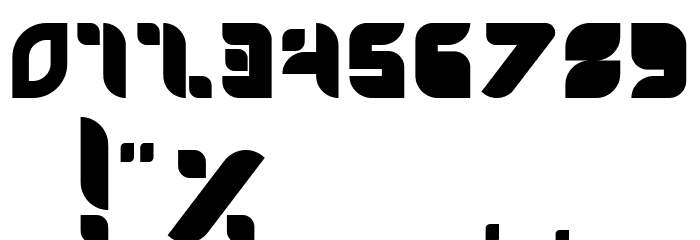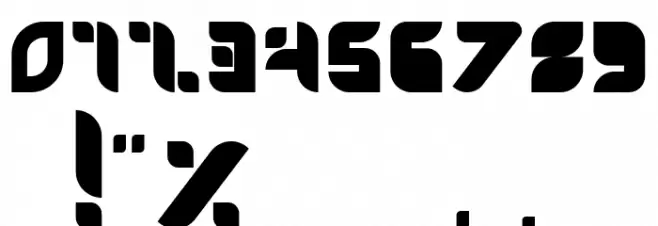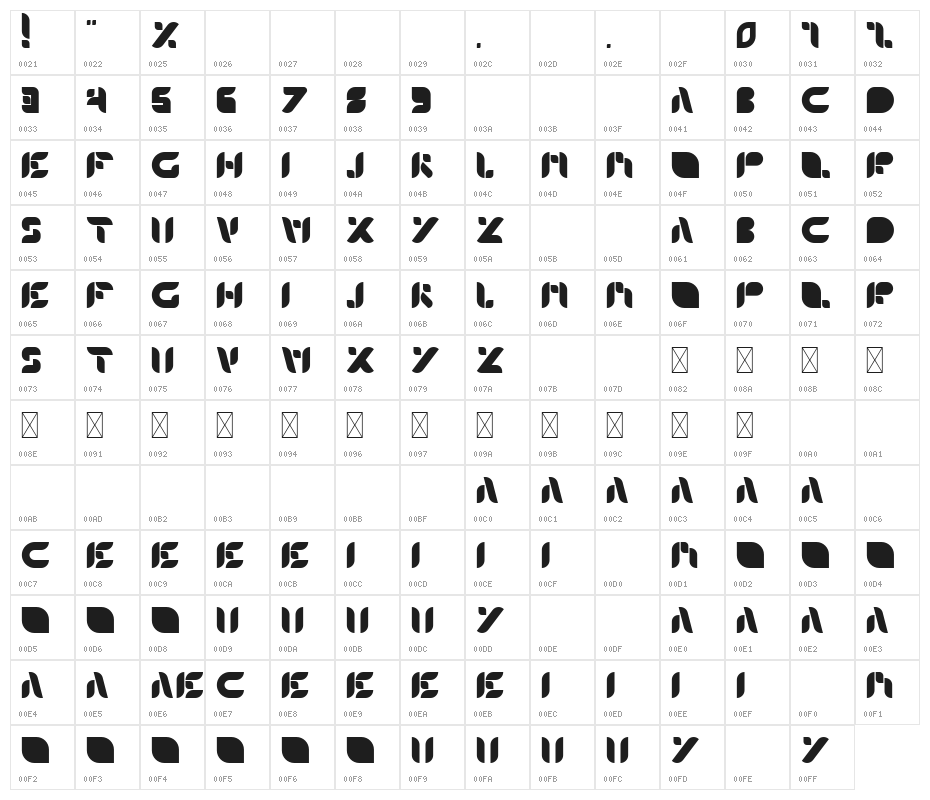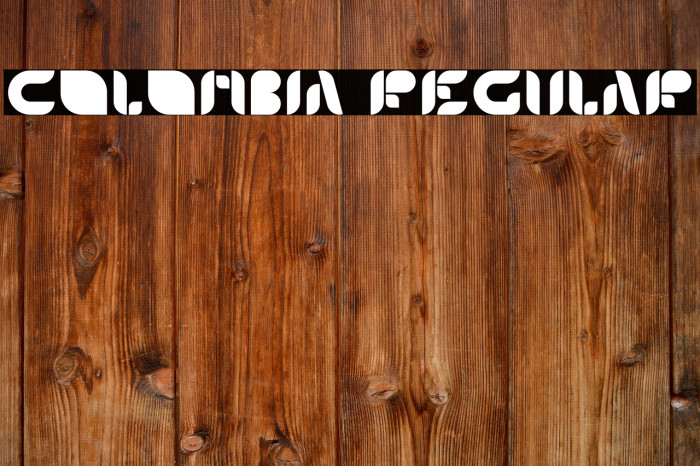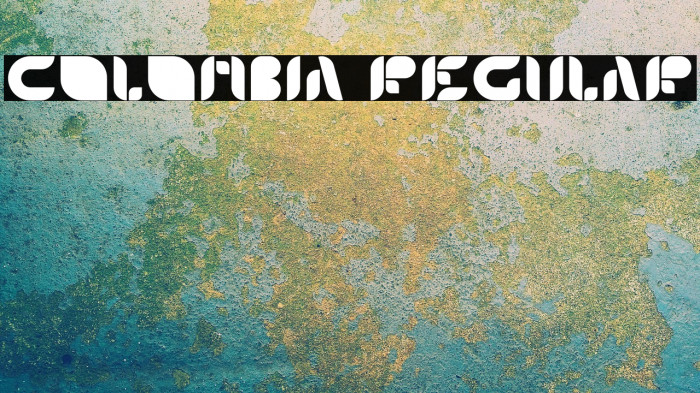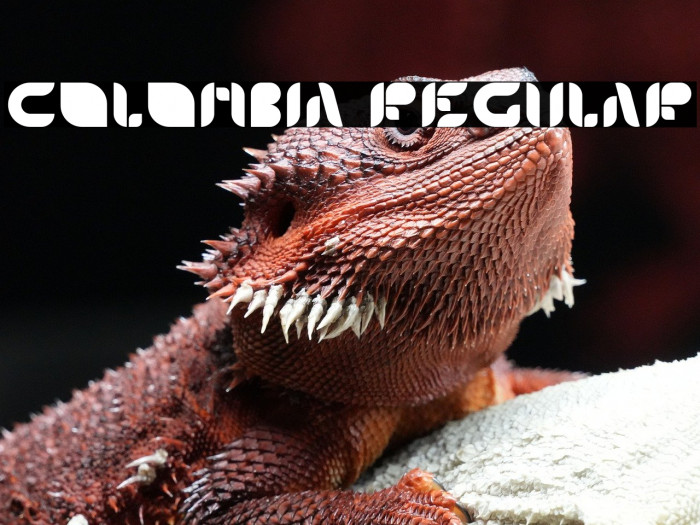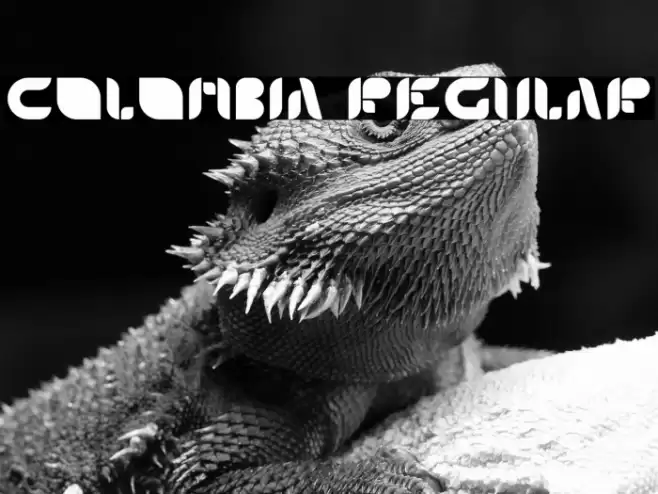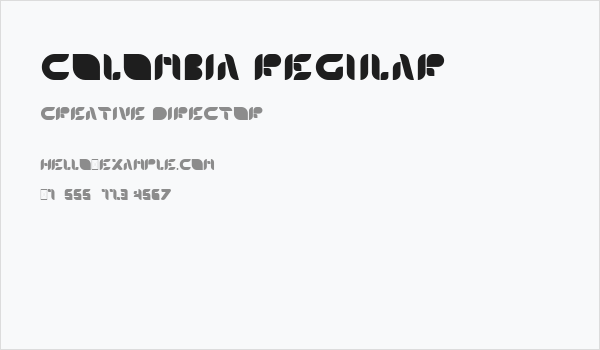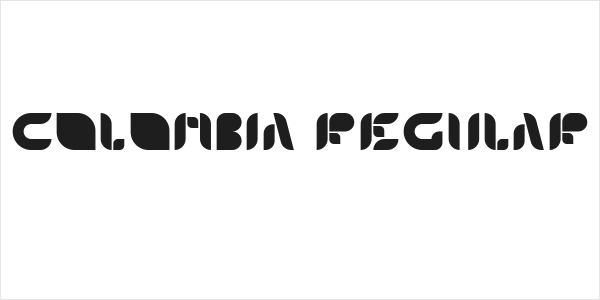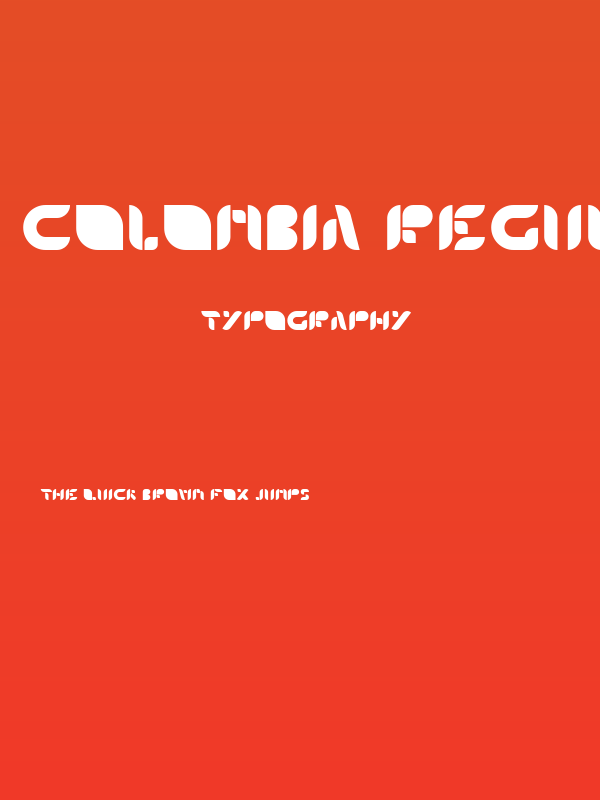
Colombia Regular Font
Colombia Regular Description
This font features a bold, geometric style with a futuristic and modern aesthetic. The characters are constructed with thick, solid lines and sharp angles, creating a sense of strength and stability. The design incorporates unique cutouts and negative spaces within the letters, adding a distinctive and eye-catching element. The uppercase and lowercase letters maintain a consistent style, while the numerals and special characters complement the overall design. This font is ideal for projects that require a strong visual impact and a contemporary feel.
| Proposed Projects | Ideal for branding, posters, headlines, and any design requiring a strong, modern aesthetic. |